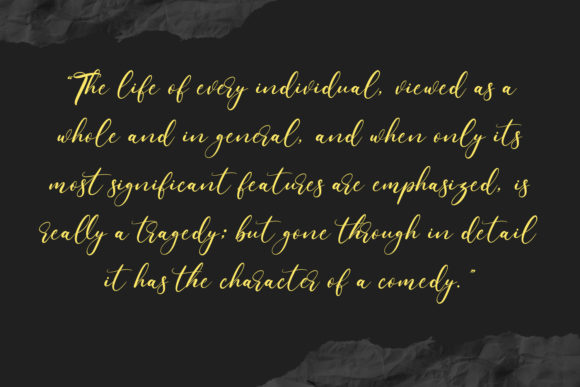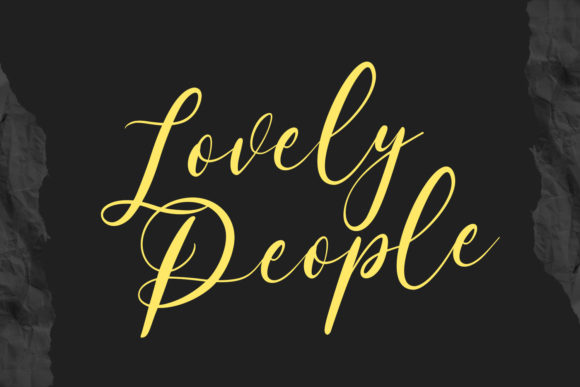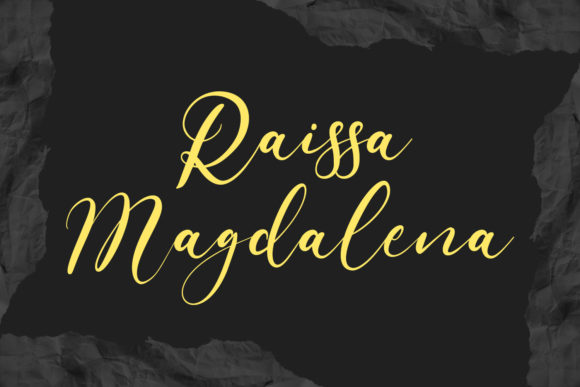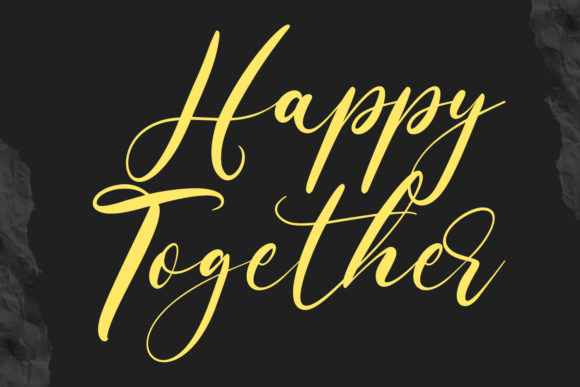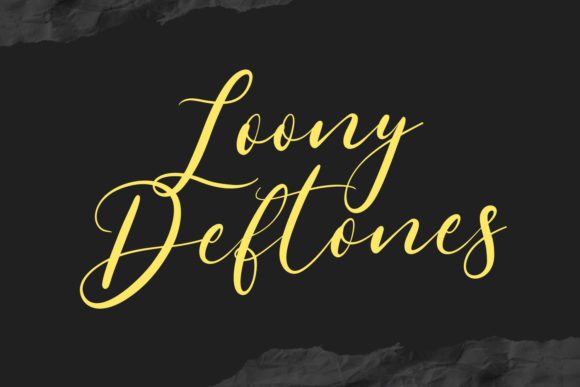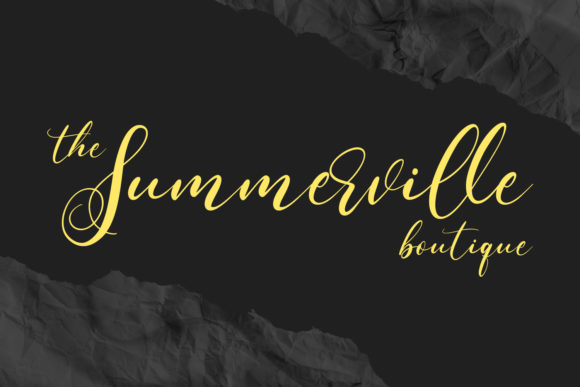
Introduction to Hollyfur Script Font
As a designer, have you ever stumbled upon the perfect font that instantly sparks your creativity and makes your project shine? For many of us, that moment comes when we discover a font that not only matches our brand’s personality but also adds a touch of elegance to our design. And that’s exactly what the Hollyfur Script Font does – it’s a game-changer for any creative project.
With its beautiful, cursive design and high contrast stroke, Hollyfur Script Font is a valuable addition to any designer’s toolkit. Whether you’re working on a logo design, social media campaign, movie title, or book cover, this font is sure to make your work stand out. And the best part? It’s available for free download, making it an accessible design resource for creatives of all levels.
But what sets Hollyfur Script Font apart from other fonts is its versatility. With a transparent background and fun character, it’s perfect for short text, long text, and even graphic design projects. Whether you’re a seasoned pro or just starting out, this high-quality font is sure to elevate your creative project to the next level.
Key Features of Hollyfur Script Font
- High-quality, elegant script font perfect for creative projects, available for free download.
- Available in a single size, making it versatile for use in various design contexts.
- Designed with a unique, flowing style that adds a touch of sophistication to any design.
- Can be used as a design resource for a variety of creative projects, from wedding invitations to branding materials.
Honest Review: Hollyfur Script Font
I recently stumbled upon the Hollyfur Script Font, and I must say it’s a great addition to any designer’s toolkit. This font is perfect for creating a beautiful, high-quality design resource that can elevate any creative project. The free download is a definite plus, making it accessible to designers of all levels.
One of the standout features of this font is its ability to work well with a transparent background. This allows for a clean and modern aesthetic that can be applied to a wide range of design projects. The font itself is also very versatile, making it easy to use in both digital and print designs.
- Not suitable for formal or corporate designs
- May not be suitable for very small text sizes
Overall, I’m impressed with the Hollyfur Script Font. It’s a great tool to have in your design arsenal, and I’d definitely recommend it to fellow designers looking for a high-quality script font.
To get the most out of the Hollyfur Script Font, use it on a transparent background to create a beautiful and elegant design. You can also experiment with different font sizes, colors, and combinations to create unique and eye-catching effects.
Common Use Cases for Hollyfur Script Font
The Hollyfur Script Font is ideal for use in wedding invitations, birthday cards, and other creative projects that require a touch of elegance and sophistication. It’s also great for use in logo design, branding, and other marketing materials where a high-quality, script font is needed.